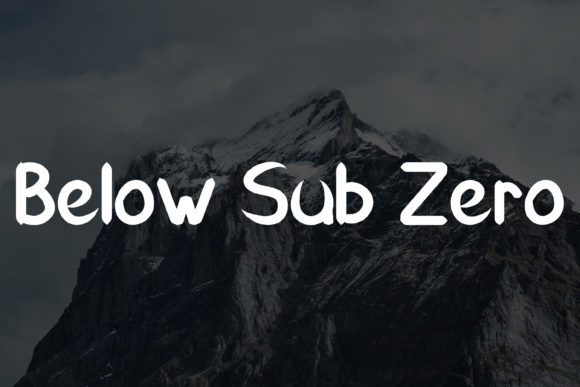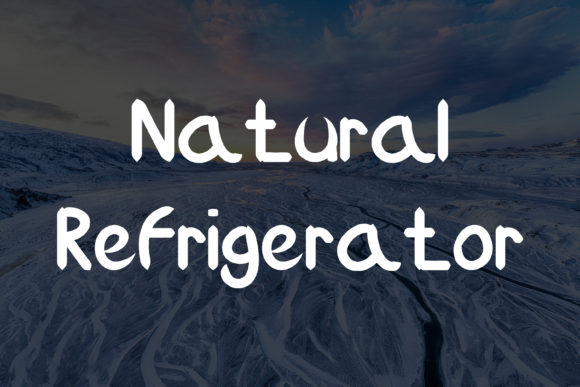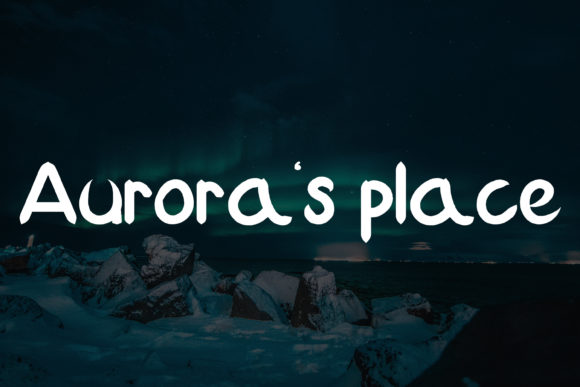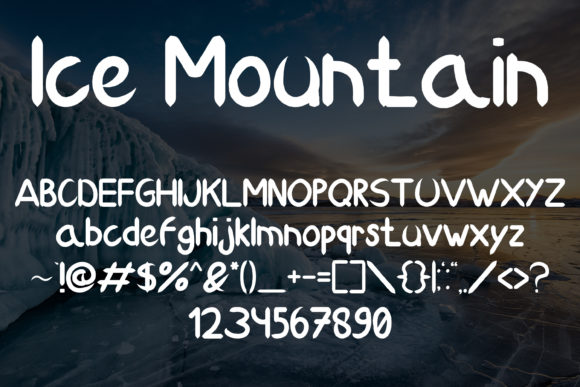
Introduction to Ice Mountain Font
Ice Mountain is a simple, neat and adaptable brushed handwritten font.
No matter the topic, this font will be an incredibly asset to your fontsโ€™ library, as it has the potential to elevate any creation .
Key Features of Ice Mountain Font
Why Choose Ice Mountain Font?
Ice Mountain Font offers exceptional quality and versatility, making it a valuable addition to your design toolkit. Whether you’re creating for personal projects or commercial use, Ice Mountain Font delivers professional results.